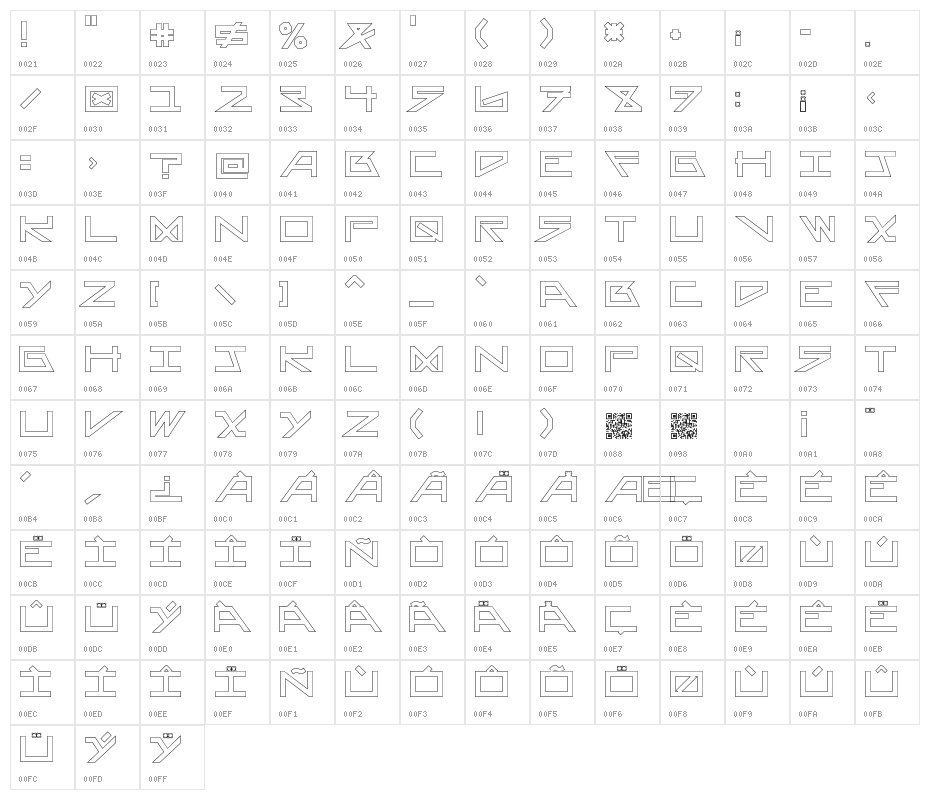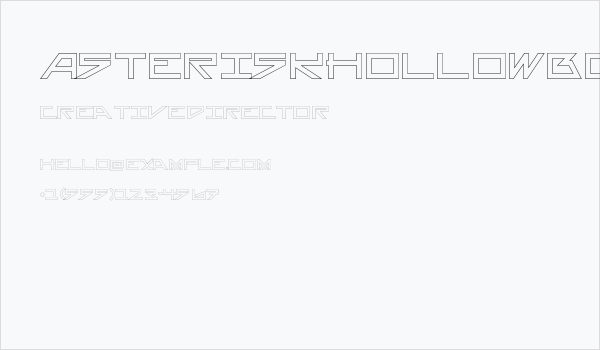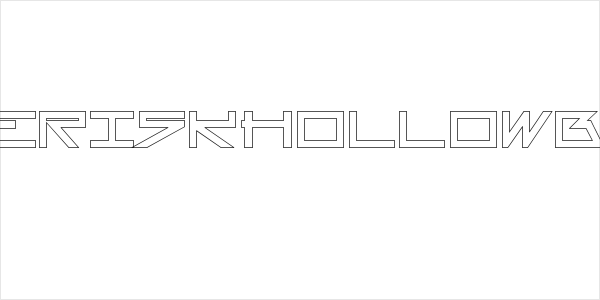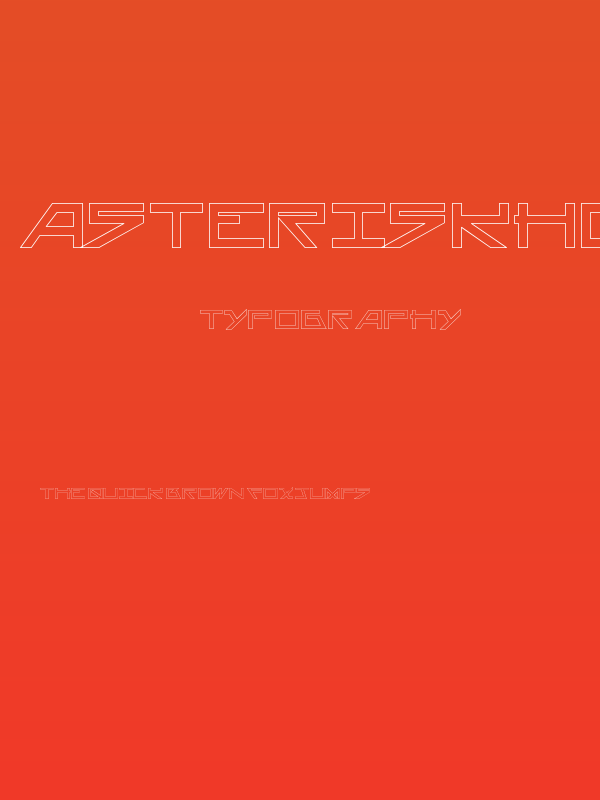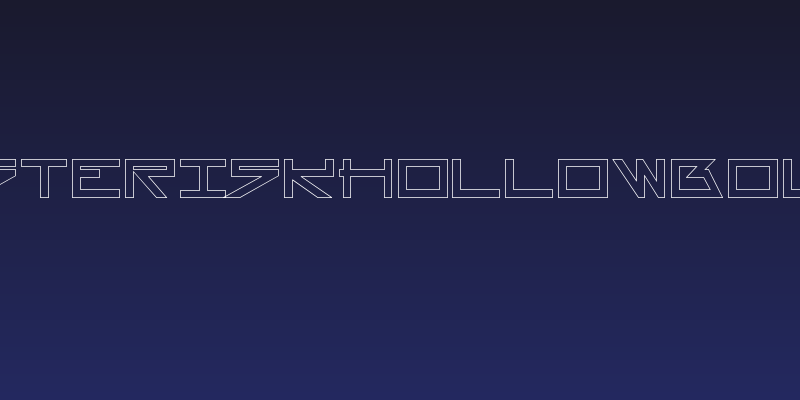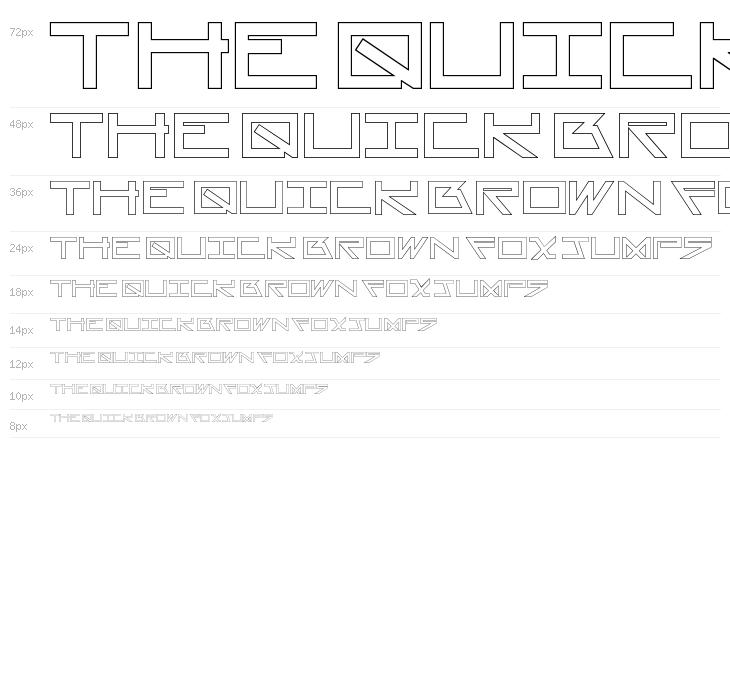
AsteriskHollowBold Font
AsteriskHollowBold Description
This font features a geometric and angular design, characterized by its hollow and bold appearance. Each letter is constructed with sharp, straight lines and distinct angles, creating a futuristic and edgy look. The uppercase and lowercase letters maintain a consistent style, with a uniform thickness that emphasizes the hollow aspect. Numbers and special characters follow the same design principles, ensuring a cohesive visual identity. The font's unique style makes it stand out, suitable for projects that require a modern and bold statement. Its hollow nature allows for creative use of background colors or textures to show through, adding an extra layer of visual interest.
Overall StyleFuturistic, Modern
Proposed ProjectsIdeal for sci-fi themed designs, modern posters, branding for tech companies, and creative headlines.